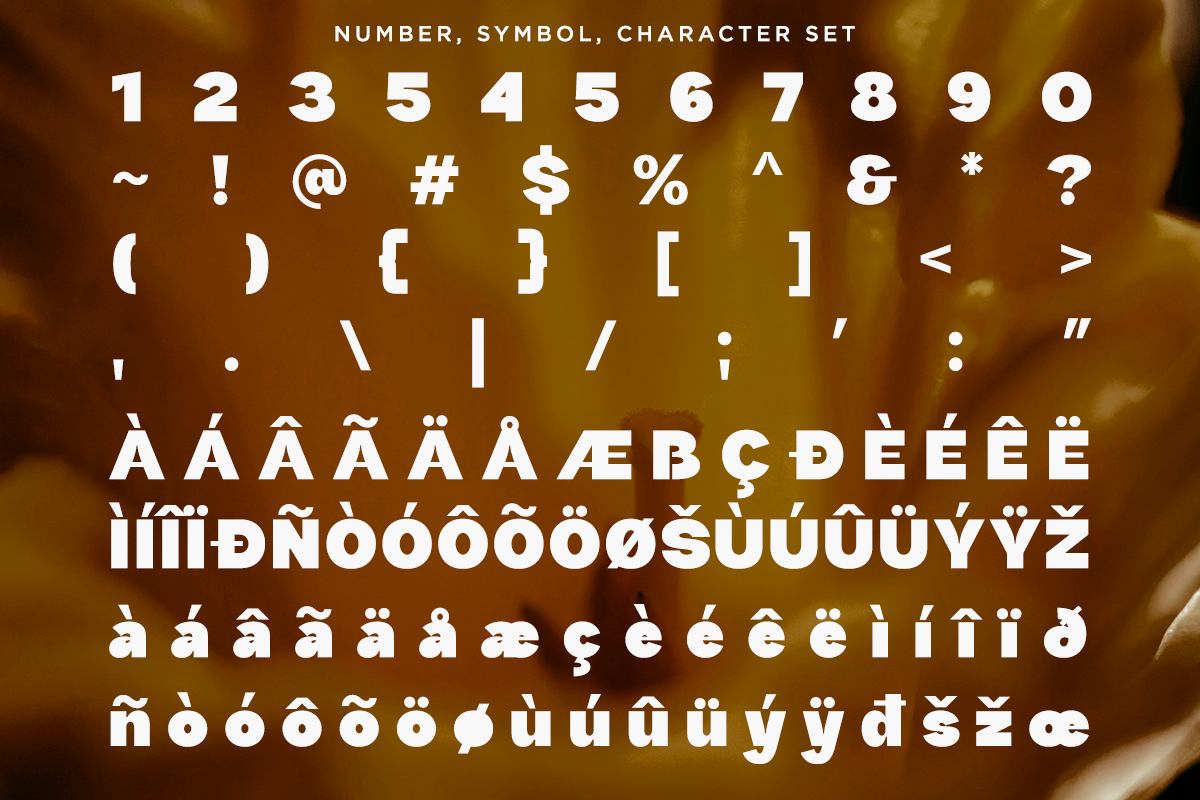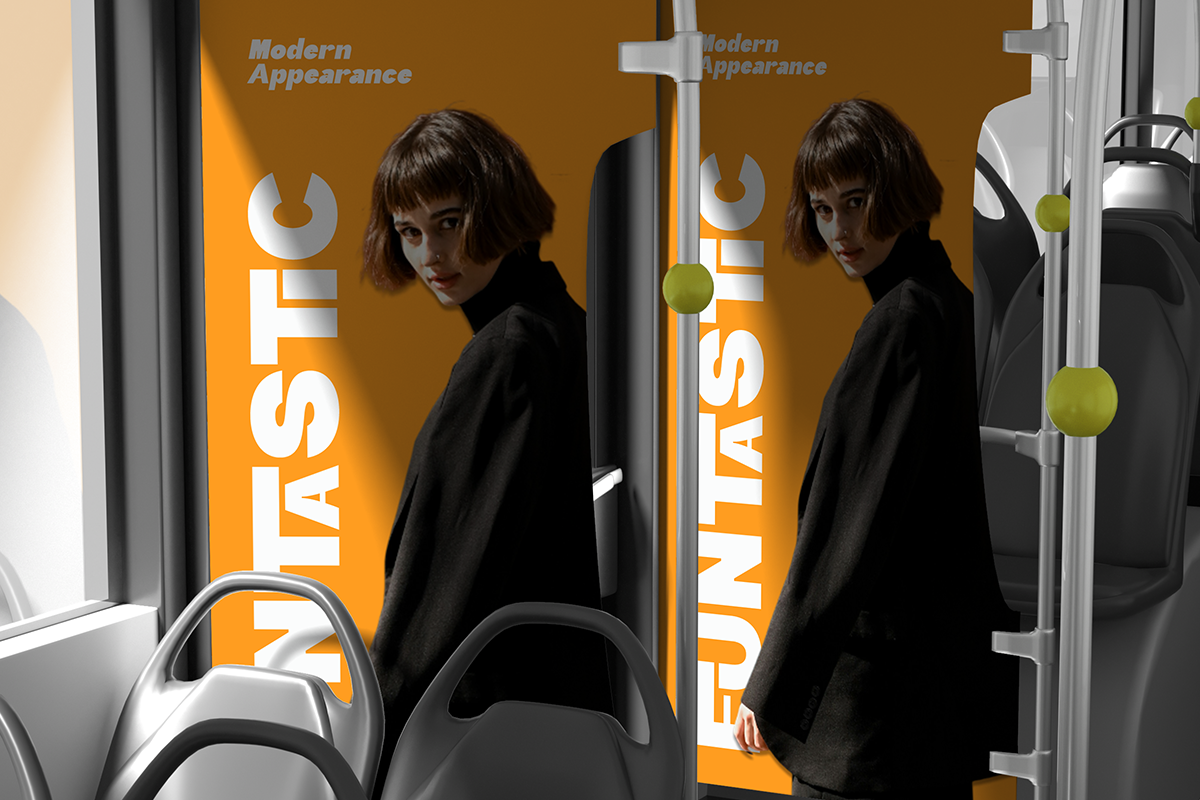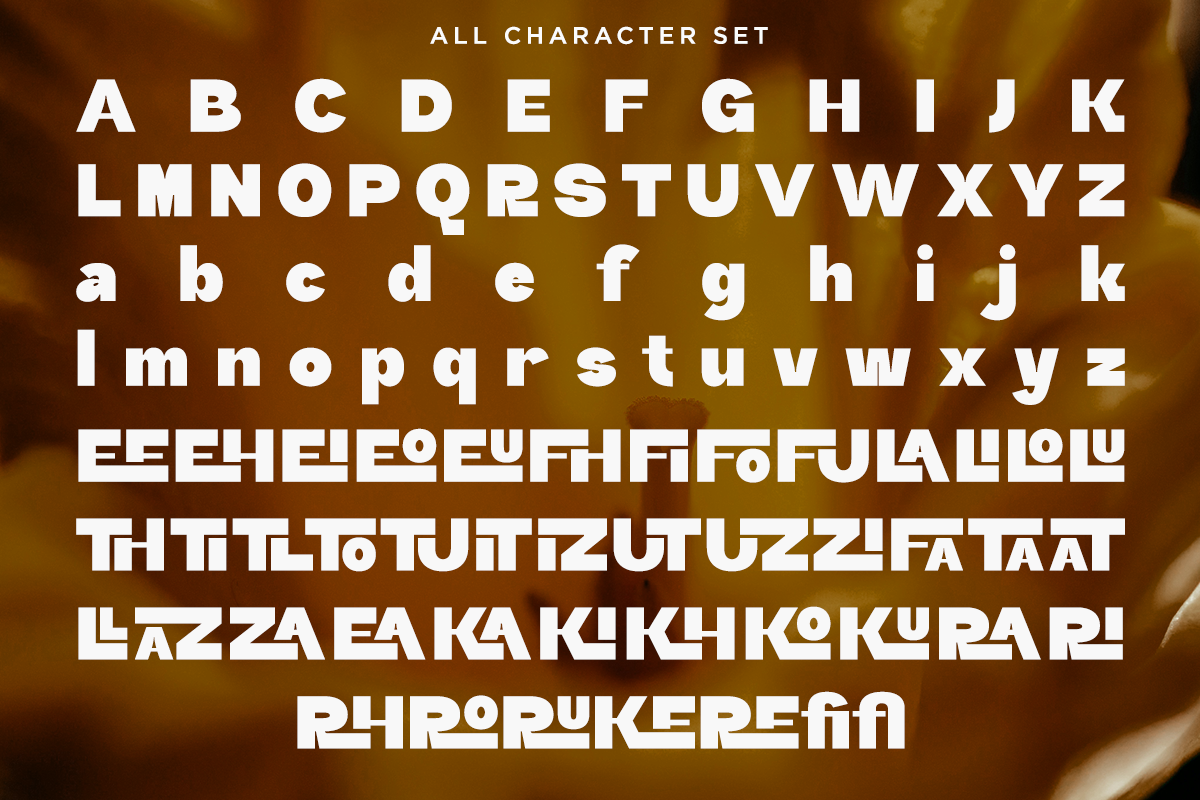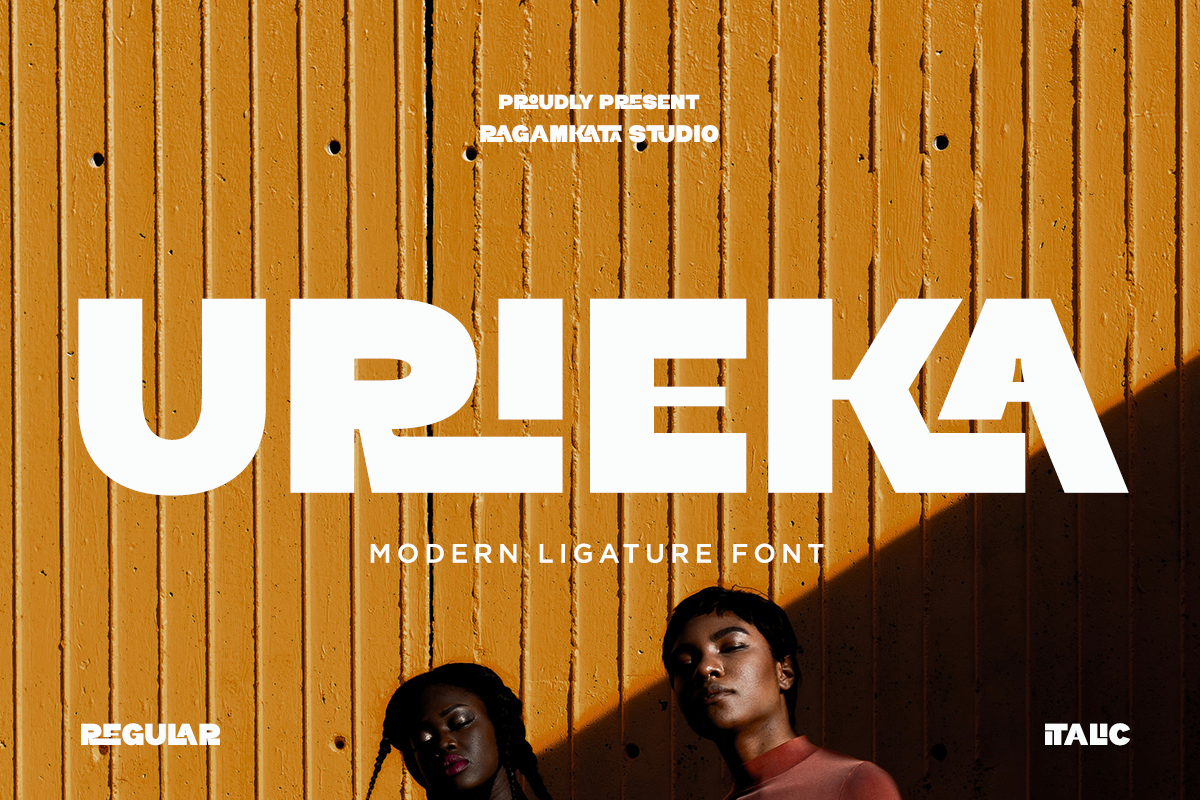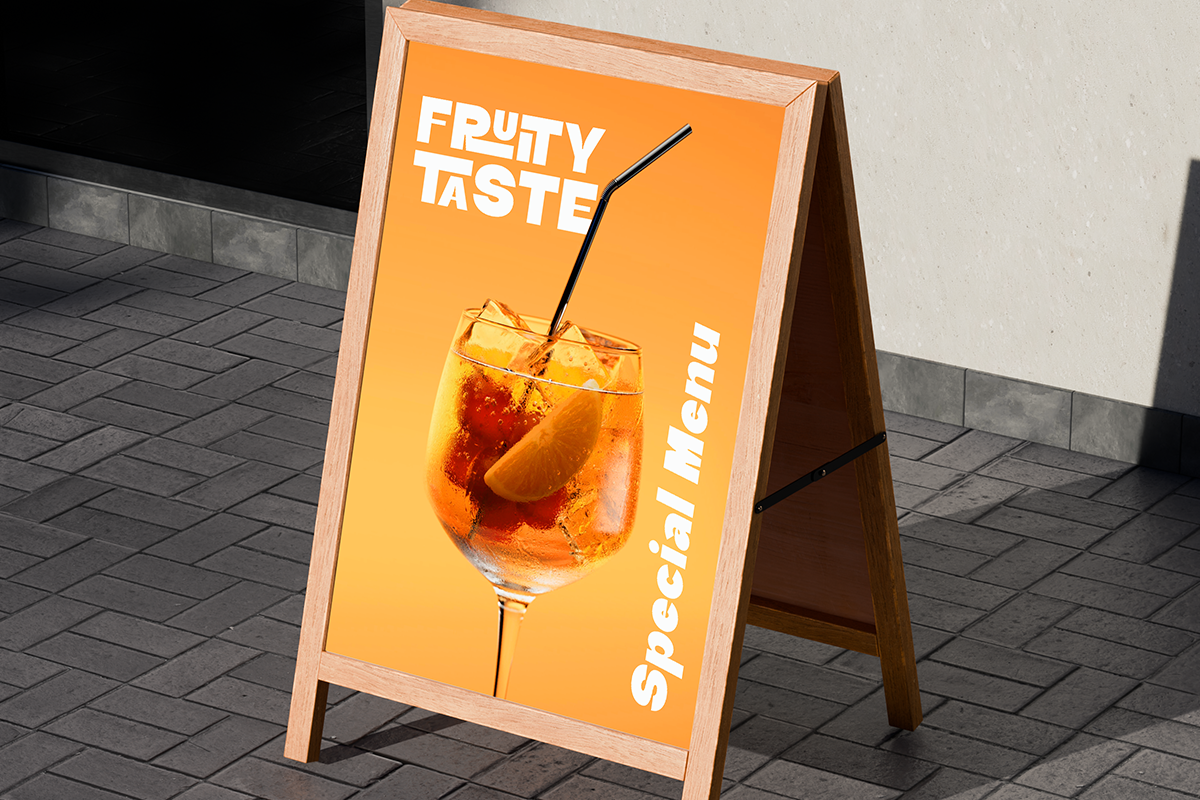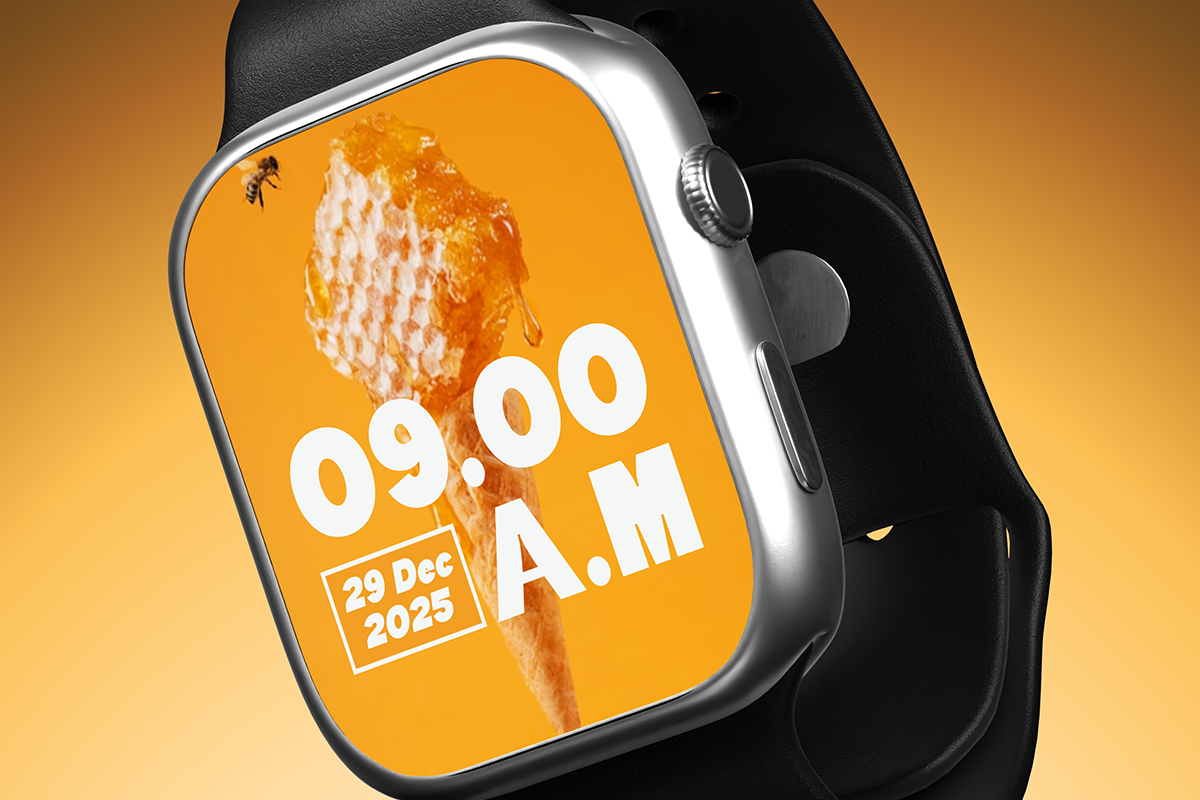
Urieka - Modern Ligature Font
Urieka is a bold modern ligature font designed to make a strong visual impact. With its sharp geometry, smooth curves, and stylish custom ligatures, URIEKA delivers a contemporary and confident look that stands out instantly. This font balances minimalism with personality, making it perfect for designers who want something eye-catching yet versatile. Perfect For logos, branding, headlines, posters, magazine titles, social media graphics, packaging design, web headers, advertising, fashion branding, modern editorials, etc
- Stylish Ligature Set
- Number, and Symbol